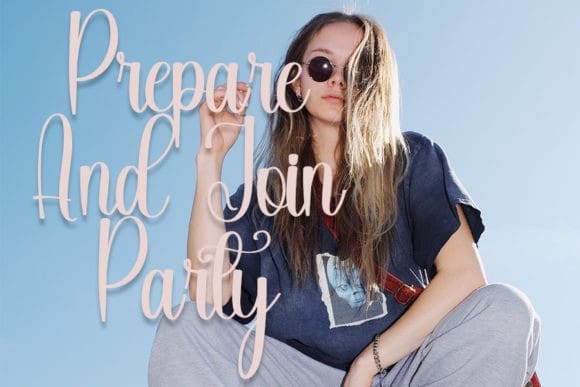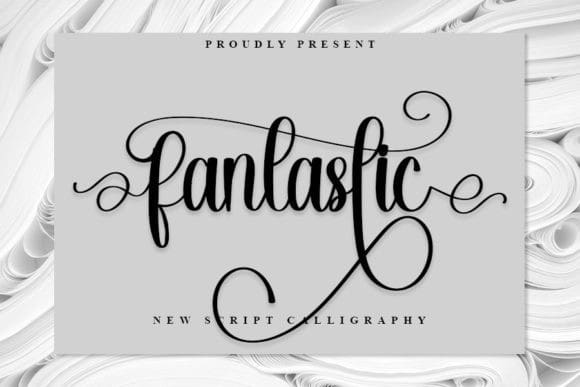
Fantastic Script Typeface
Fantastic Script Typeface is a beautiful and refined script font. It has a classy, elegant and modern look that can be used for logos, branding, invitations, stationery, wedding designs, social media posts, and much more!